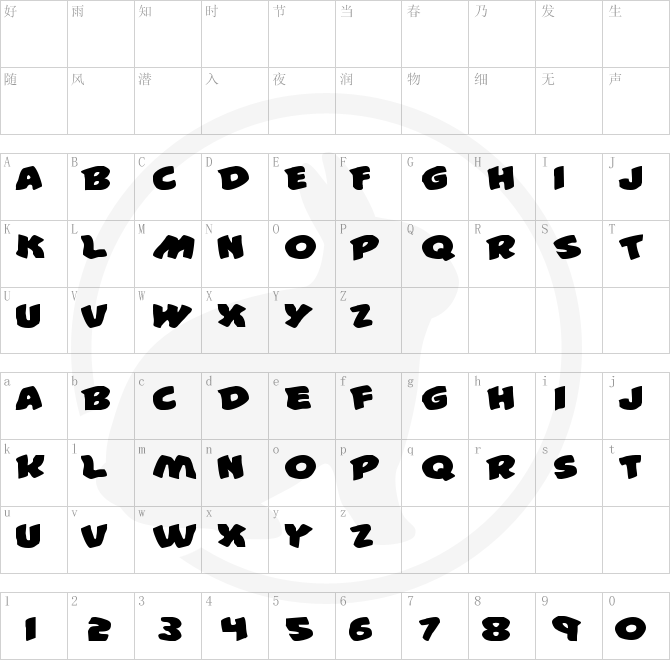
- Font Name:#44 Font Expanded
#44-Font-Expanded.ttf is a very beautiful artistic font, #44-Font-Expanded.ttf is widely used in the design and printing of various books and pictures,#44-Font-Expanded.ttf has a strong visual impact,#44-Font-Expanded.ttf is a commonly used font in newspapers, magazines and books, and is used in posters, e-commerce Poster design, store design, logo design, font design and other fields.#44-Font-Expanded.